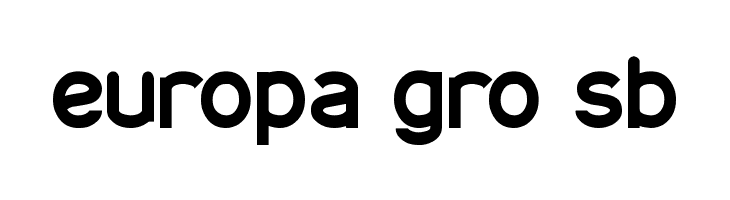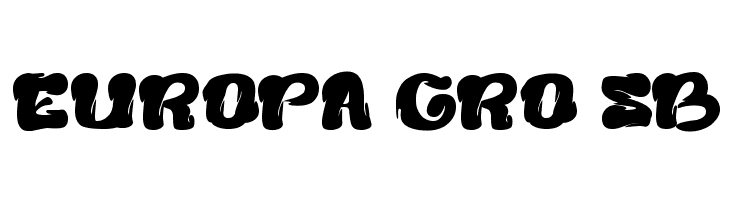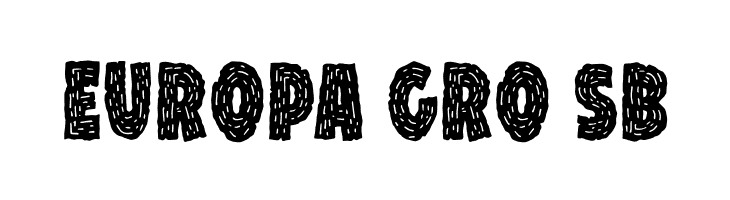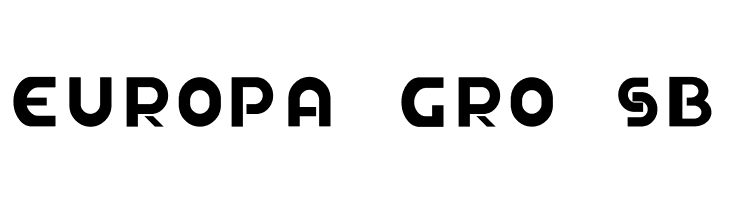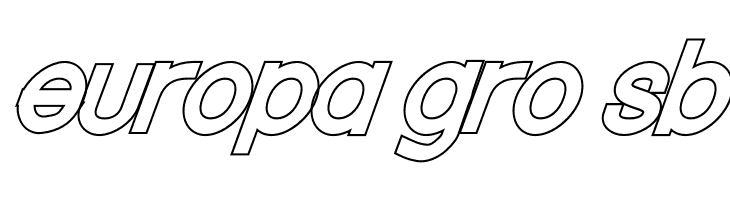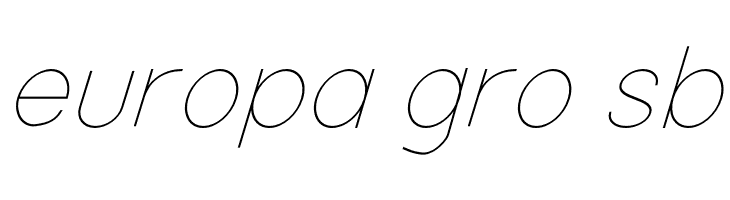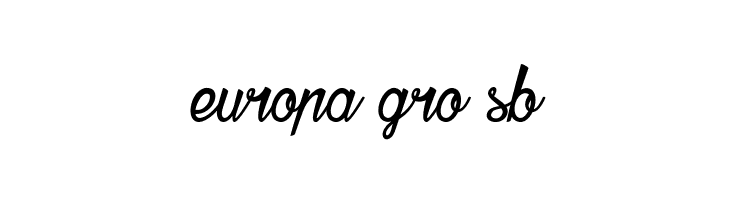
A bold, geometric sans-serif font with a modern and clean design.
A bold, playful font with thick, rounded strokes and a retro-modern style.
A bold, hand-drawn font with a playful, textured appearance.
A playful, handwritten font with a casual and friendly vibe.
A bold, geometric font with thick, uniform strokes and angular edges.
A flowing, elegant script font with interconnected letters and a sophisticated style.
A sophisticated and elegant script font with ornate uppercase letters and smooth, readable lowercase letters.